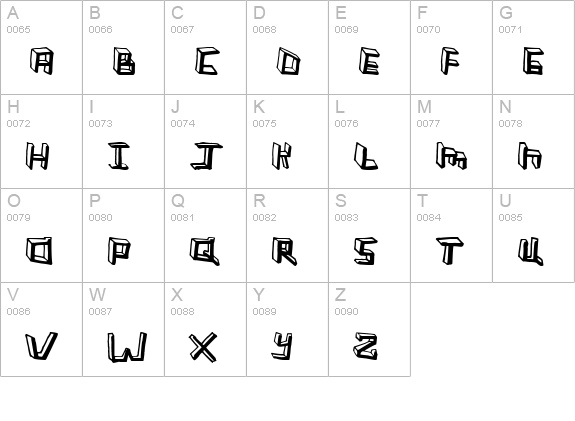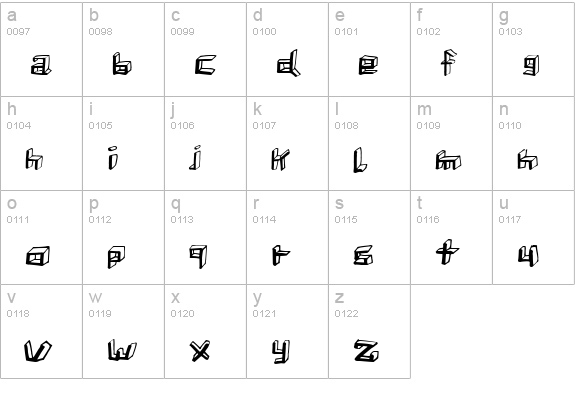
Sleeping in Lecture is a free for personal use font in the Fancy > 3D category. It has been downloaded 184 times and is available for Windows, Mac and Linux.
Sleeping in Lecture font is a whimsical and playful typeface that is perfect for adding a touch of fun to any design project. Its unique and quirky letterforms are reminiscent of doodles made during a boring lecture, capturing the essence of daydreaming and imagination. With its uneven and imperfect lines, Sleeping in Lecture font brings a hand-drawn and personalized feel to your designs. This font is not only visually delightful but also highly versatile. It can be used for a wide range of projects, such as greeting cards, posters, book covers, logos, and more. Its relaxed and casual style makes it particularly suitable for designs that aim to evoke a lighthearted and carefree atmosphere. One of the best things about Sleeping in Lecture font is that it is freely available to download at FontsMarket.com. This means that you can easily incorporate this font into your designs without any financial constraints. Whether you are a professional designer or a hobbyist, this font offers a fantastic opportunity for you to experiment and let your creativity run wild. In addition to its free availability, Sleeping in Lecture font also comes with a wide range of characters and ligatures, allowing you to create unique and eye-catching typography. Its extensive language support ensures that you can use this font in various languages and settings. So why wait? Download Sleeping in Lecture font today from FontsMarket.com and add a touch of whimsy and imagination to your design projects. Whether you are looking to create a playful poster or a charming logo, this font will surely bring a smile to your audience's faces.